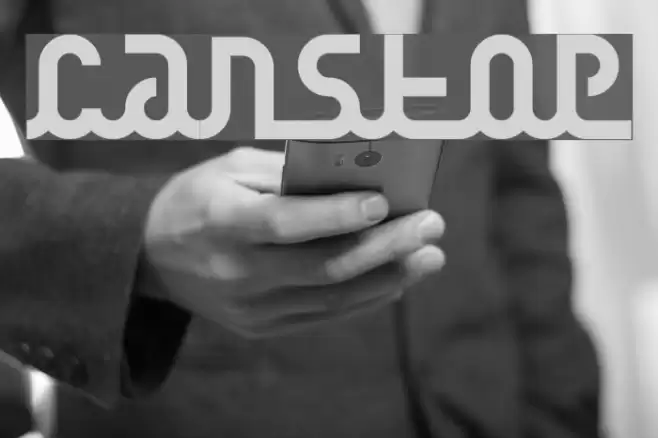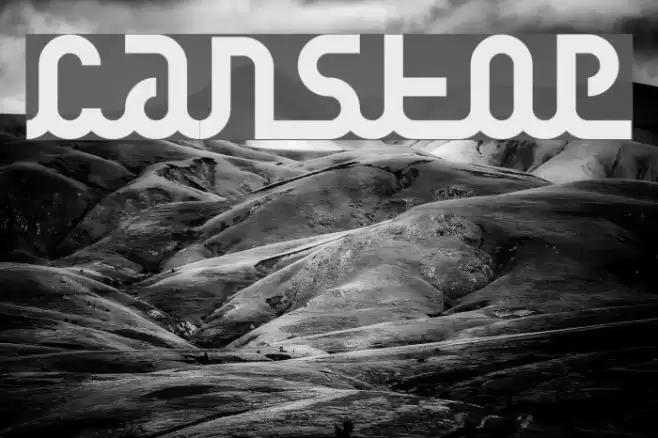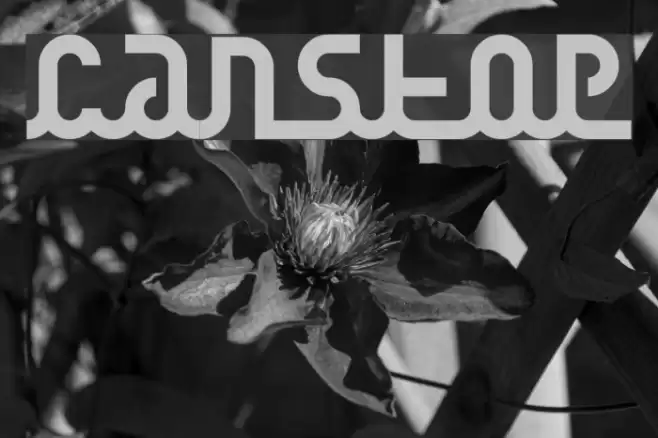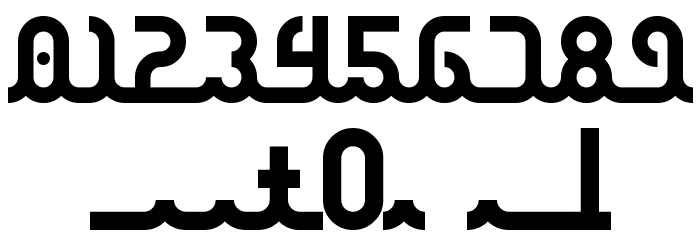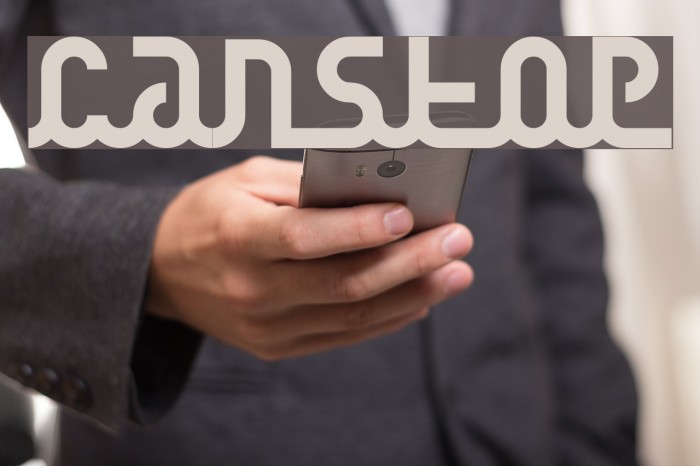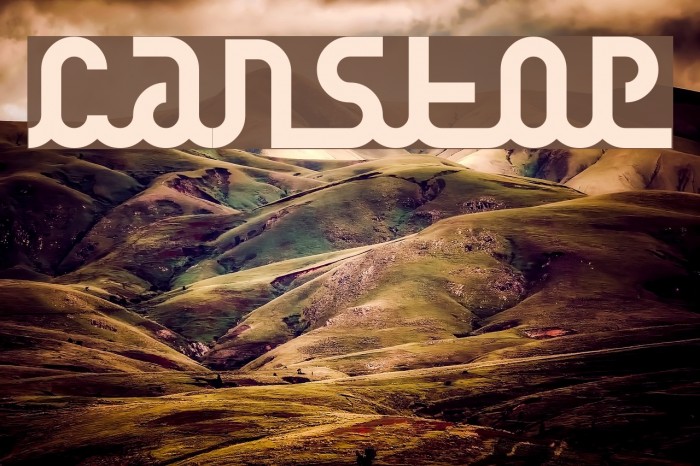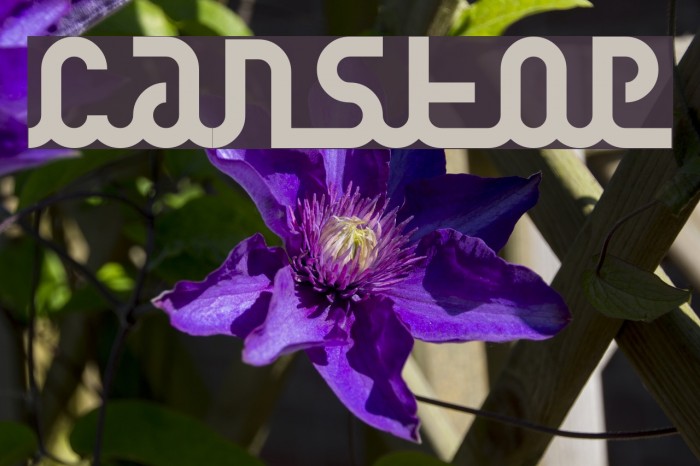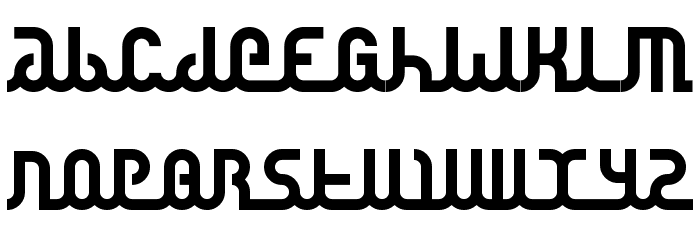
canstop Font
canstop Description
This font features a bold and geometric design with a distinct modern flair. The characters are constructed with thick, uniform strokes that create a strong visual impact. Each letter is crafted with a unique style, incorporating rounded edges and a consistent line weight throughout. The uppercase and lowercase letters maintain a cohesive look, while the numerals and special characters echo the same boldness and geometric precision. This font is ideal for projects that require a contemporary and eye-catching typeface.
A bold, geometric font with a modern and impactful design from Futuristic fonts.
- Proposed Projects: Ideal for branding, posters, headlines, and any design that requires a strong visual presence.